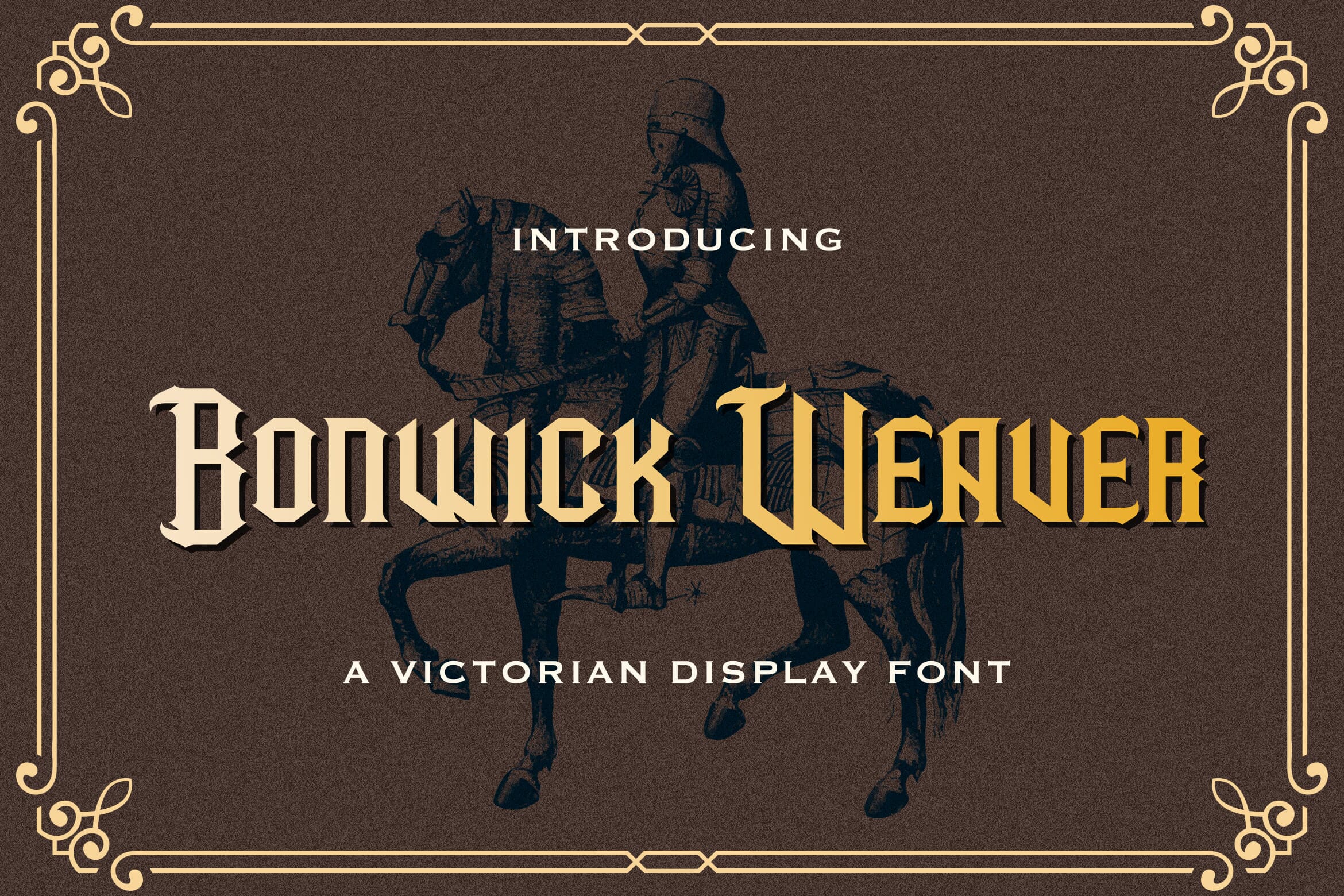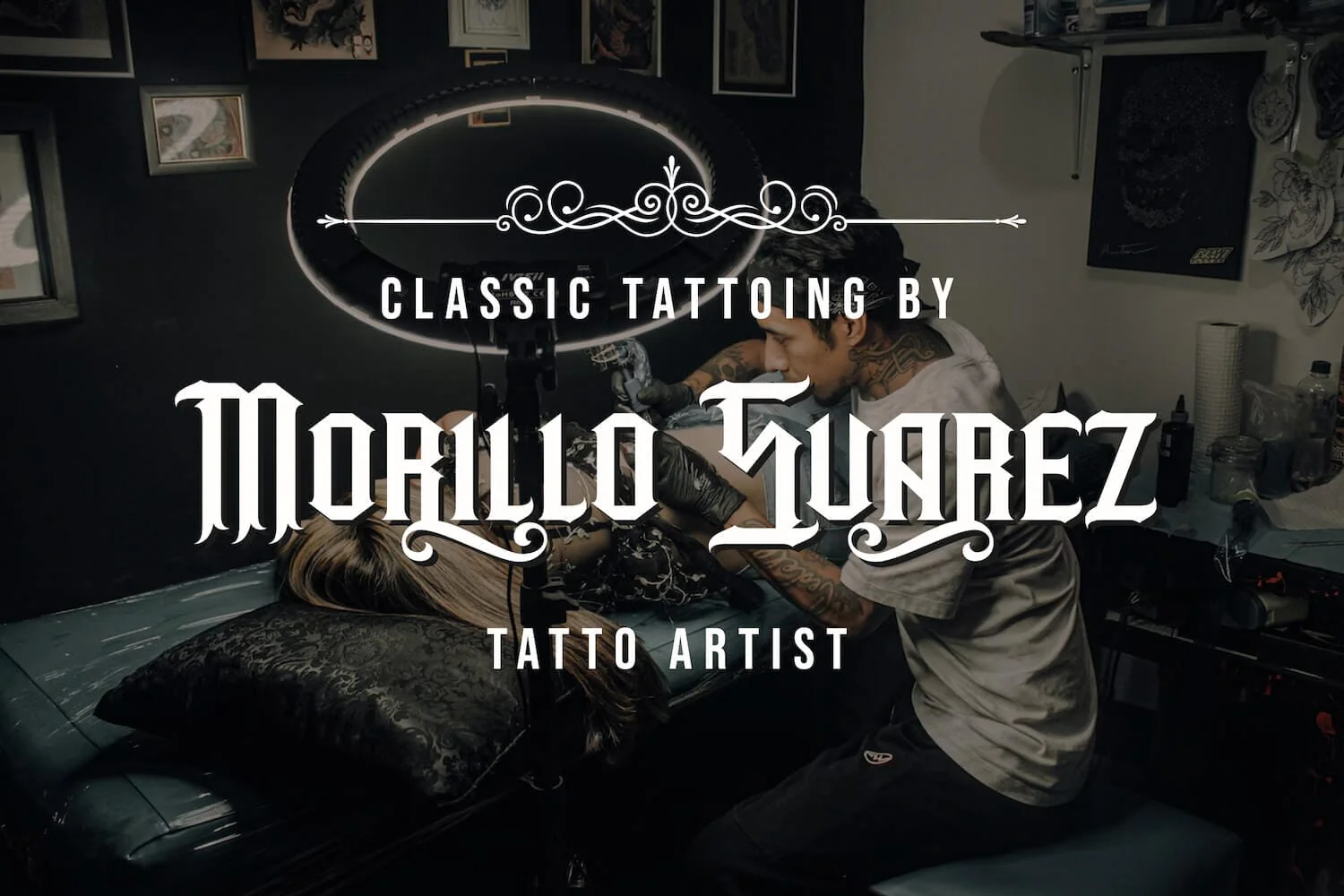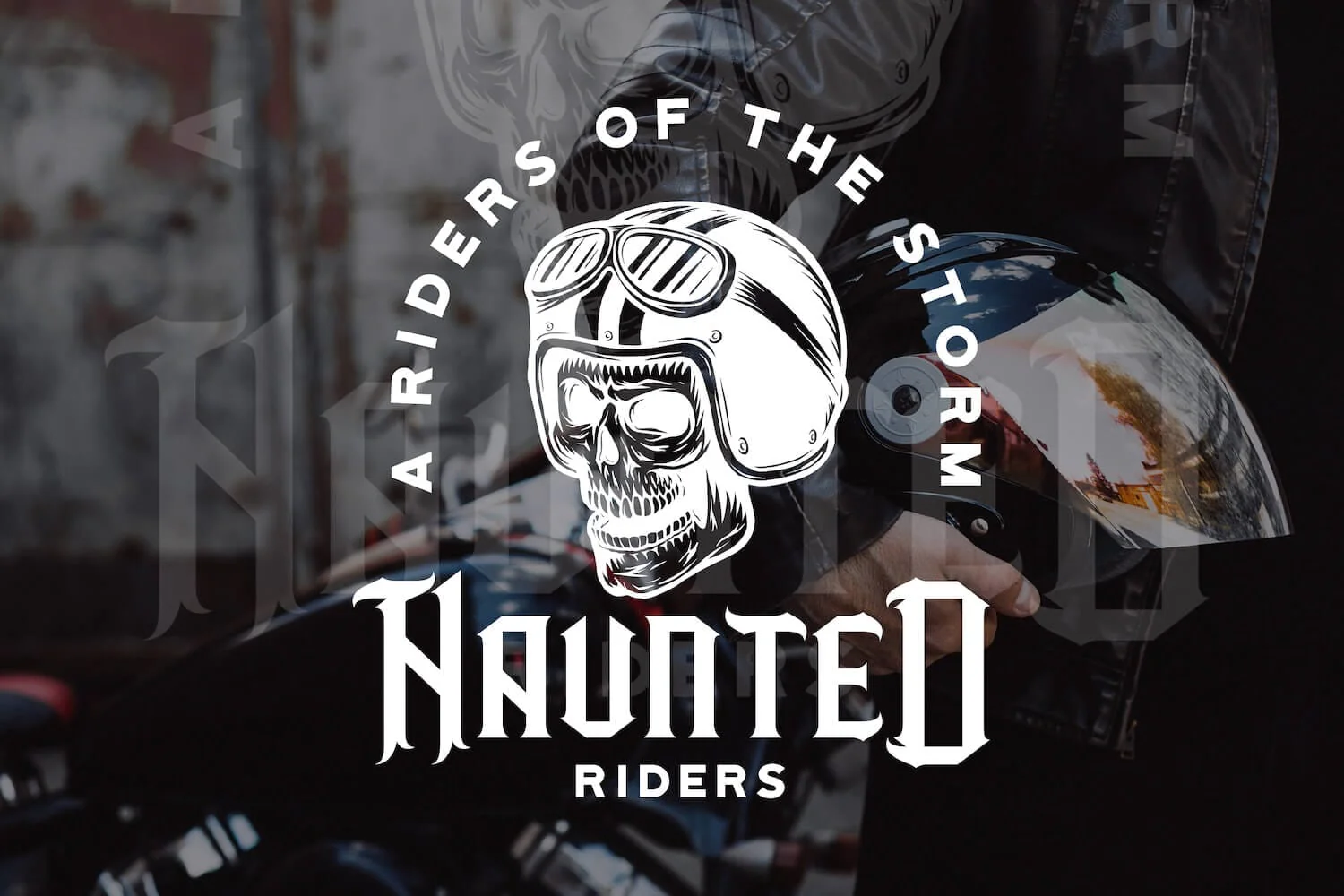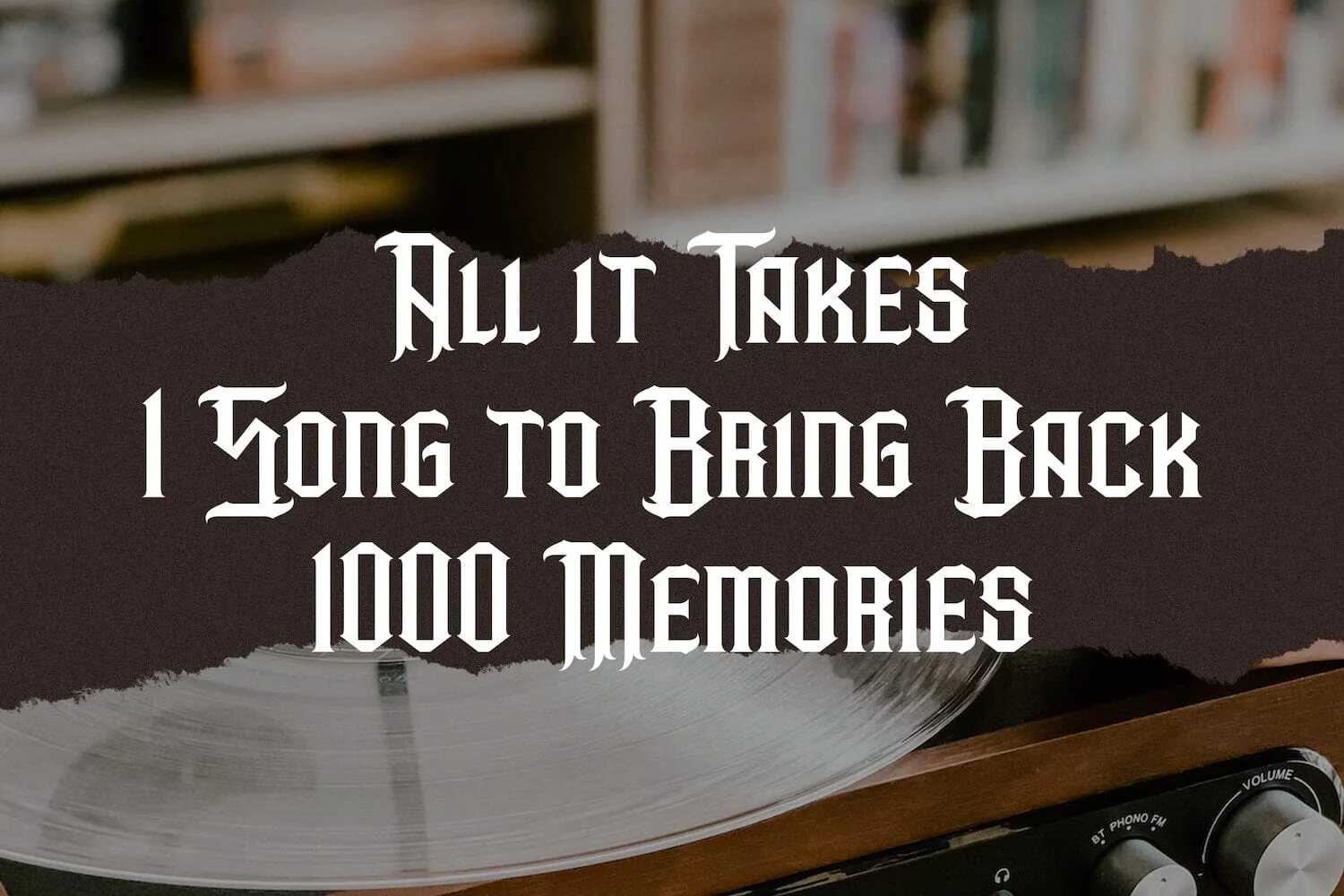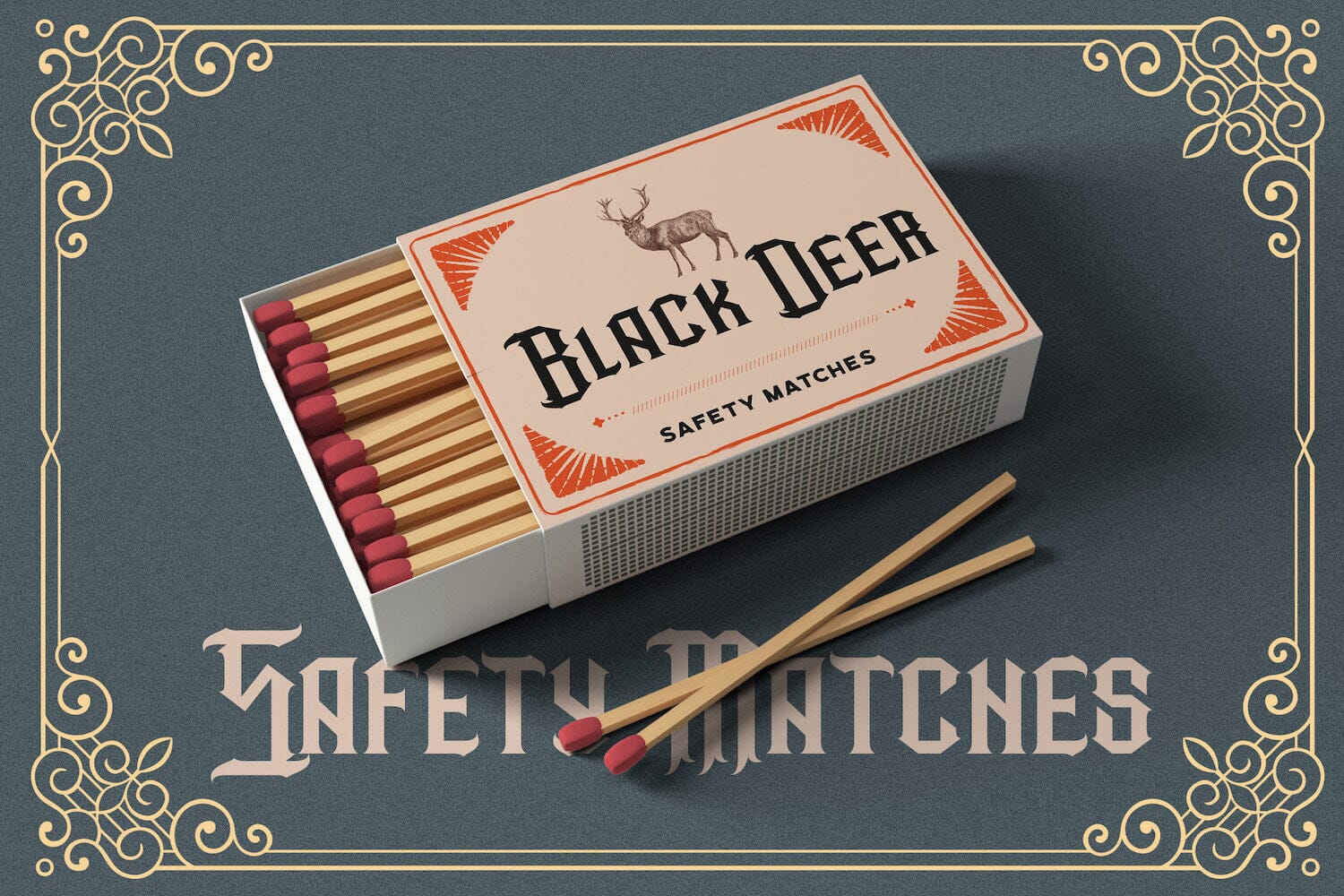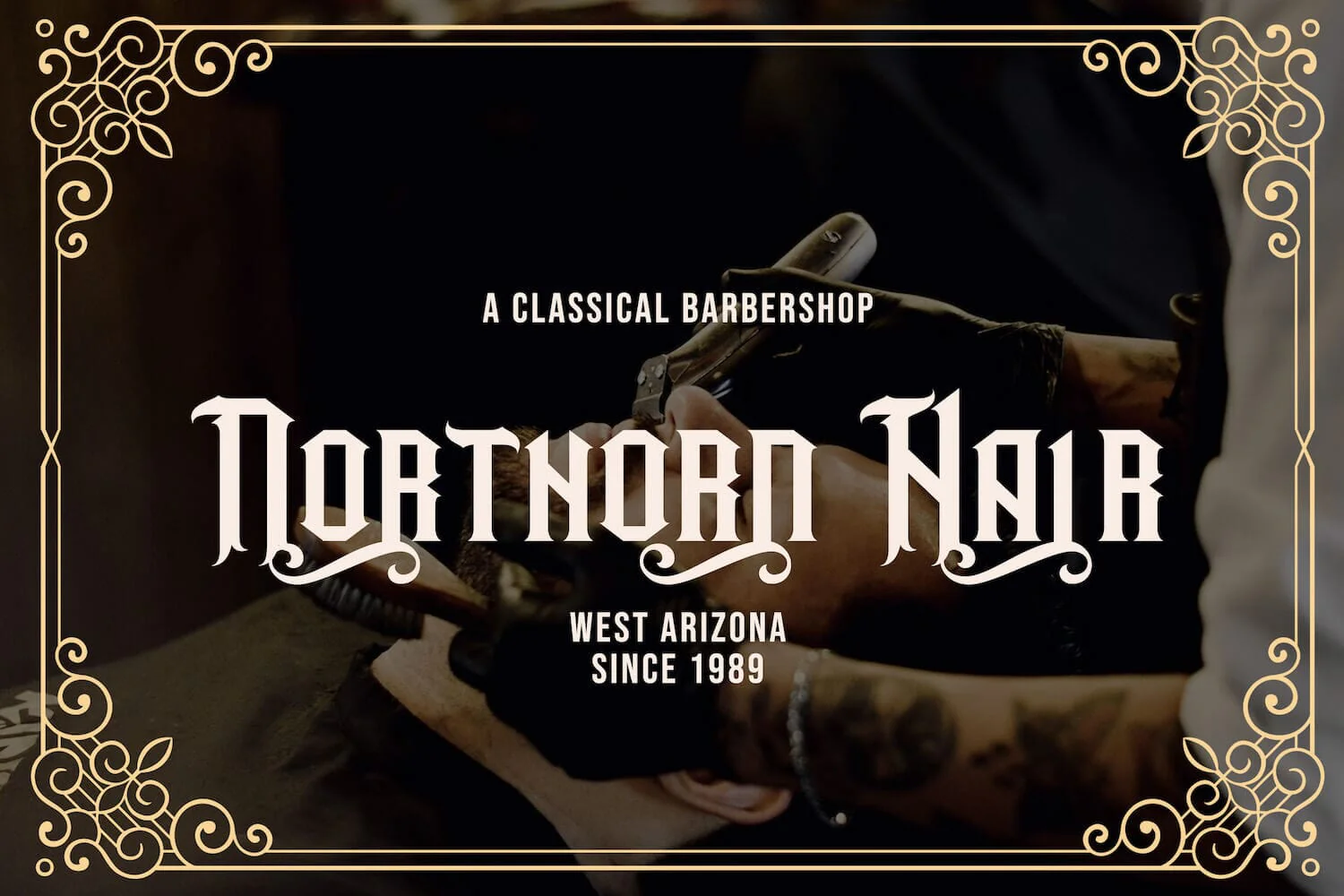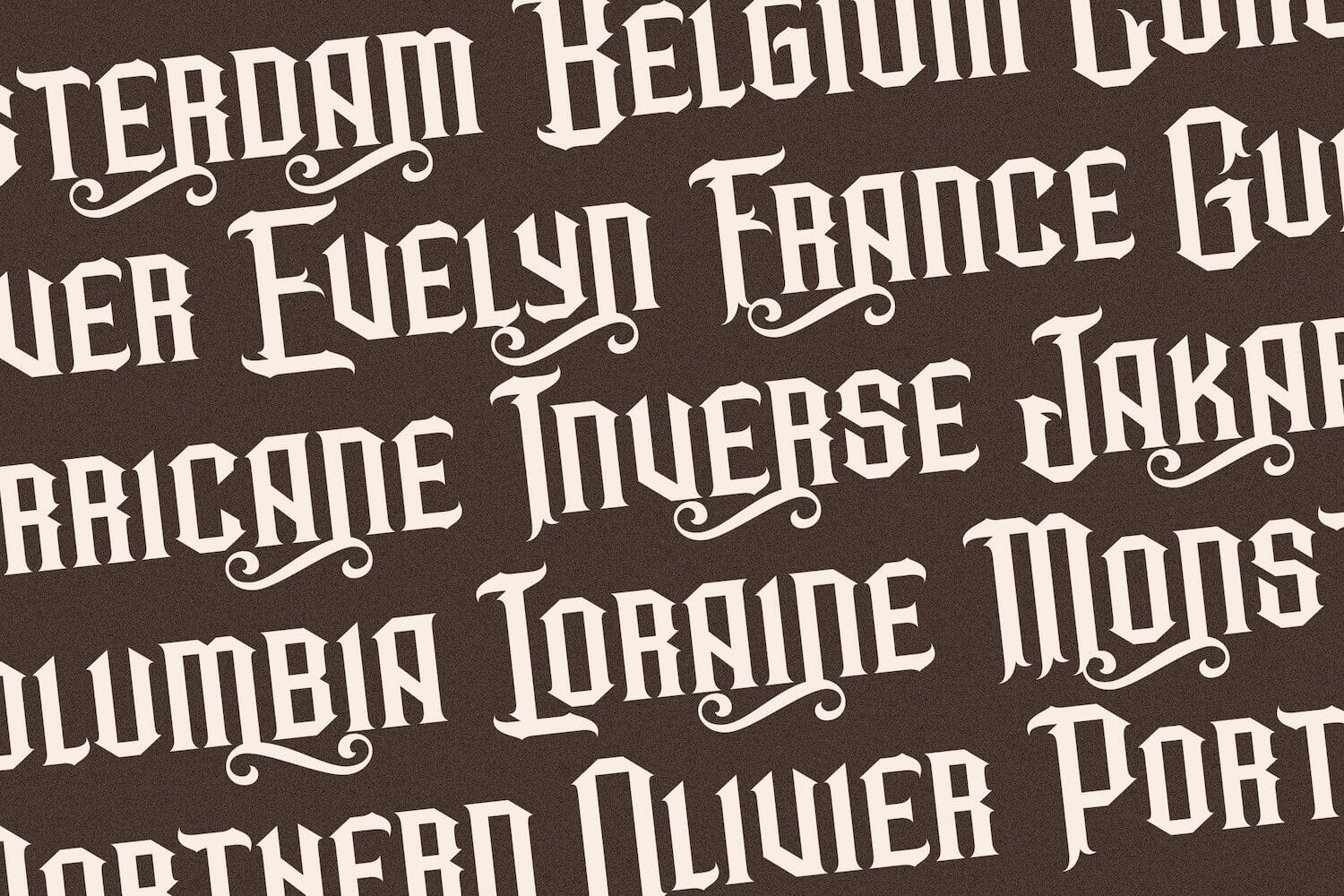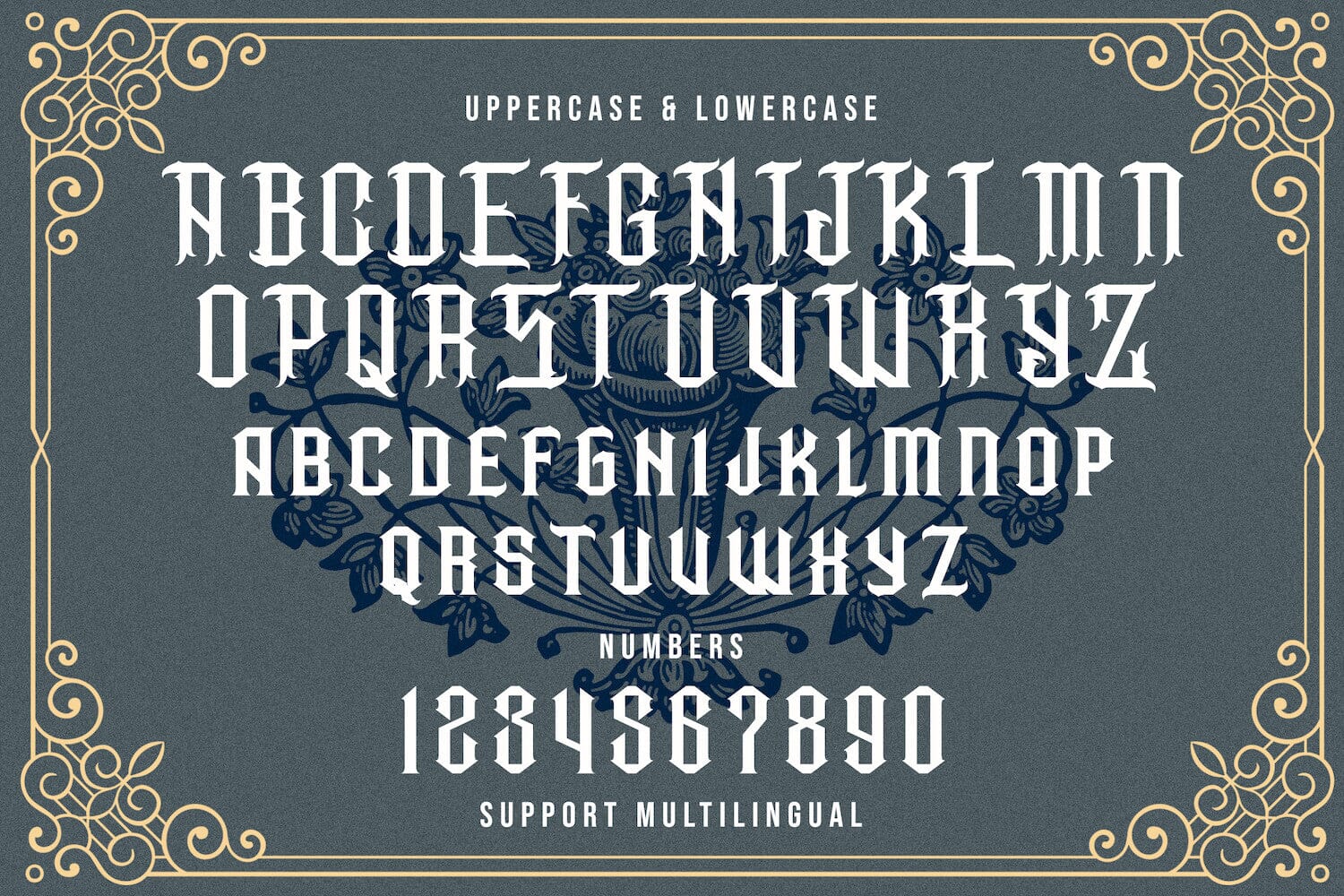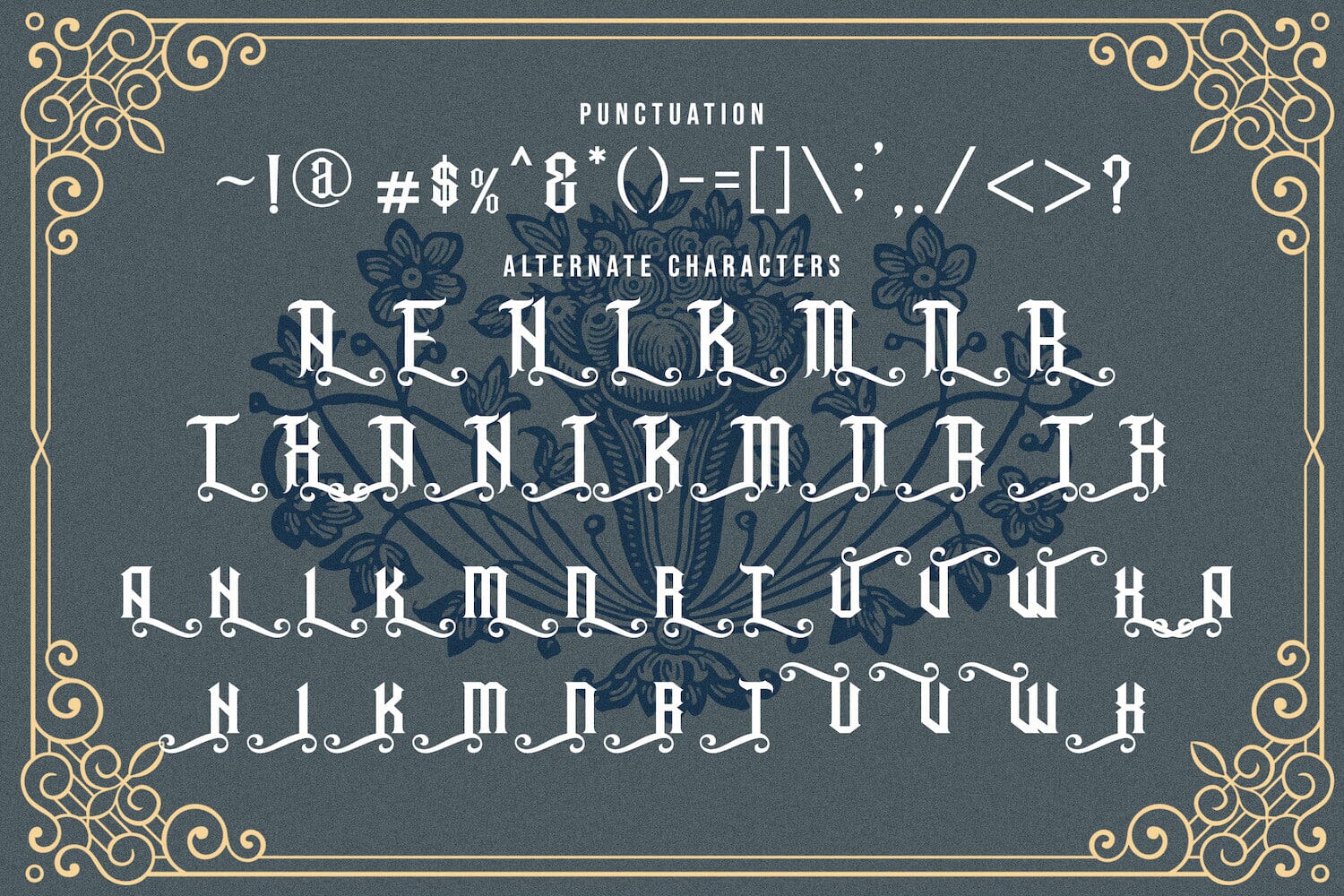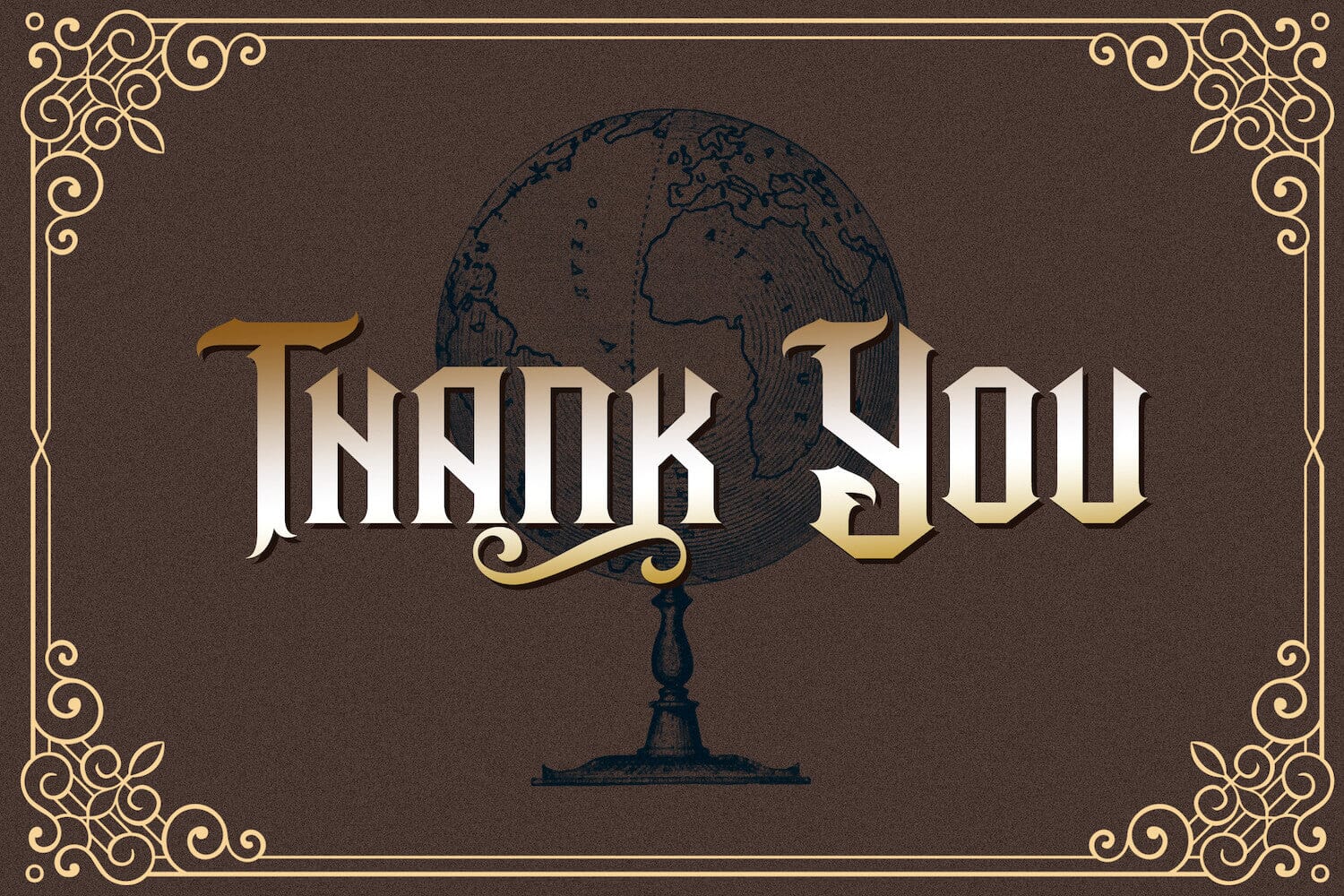
Bonwick Weaver - Victorian Display Font
Introducing Bonwick Weaver - Victorian Display Font
Bonwick Weaver is a unique, vintage and elegant decorative font with victorian style. This Font feels playfully nostalgic and delivers an incredible vintage aesthetic. Inspired by vintage tattoo design, Bonwick Weaver is an absolutely stunning and eye-catching typeface. This typeface will look truly outstanding in a wide range of modern and classic designs, with its romantic and bold formation, as well as its attention to detail
Introducing Bonwick Weaver - Victorian Display Font
Bonwick Weaver is a unique, vintage and elegant decorative font with victorian style. This Font feels playfully nostalgic and delivers an incredible vintage aesthetic. Inspired by vintage tattoo design, Bonwick Weaver is an absolutely stunning and eye-catching typeface. This typeface will look truly outstanding in a wide range of modern and classic designs, with its romantic and bold formation, as well as its attention to detail